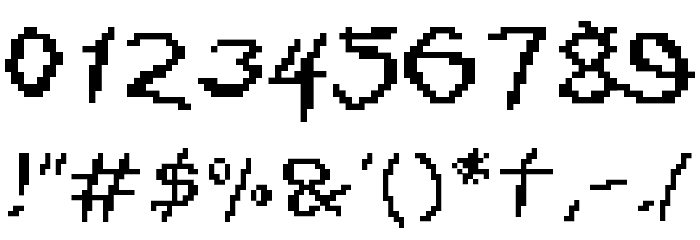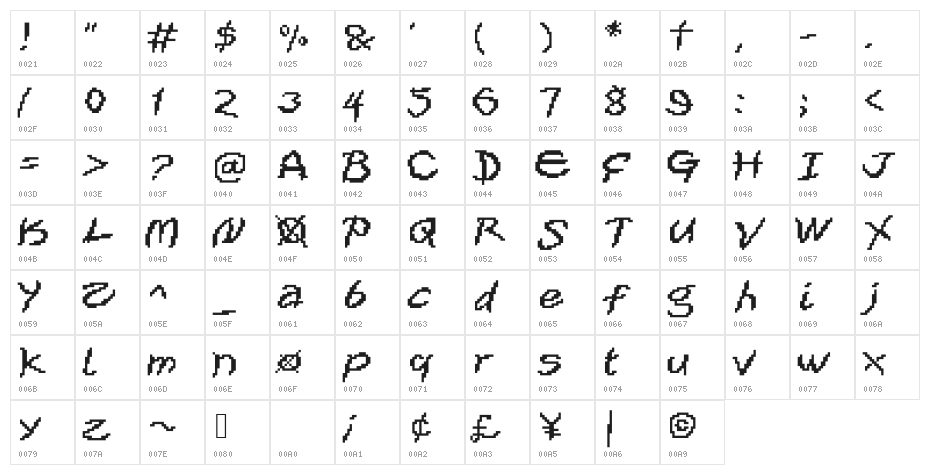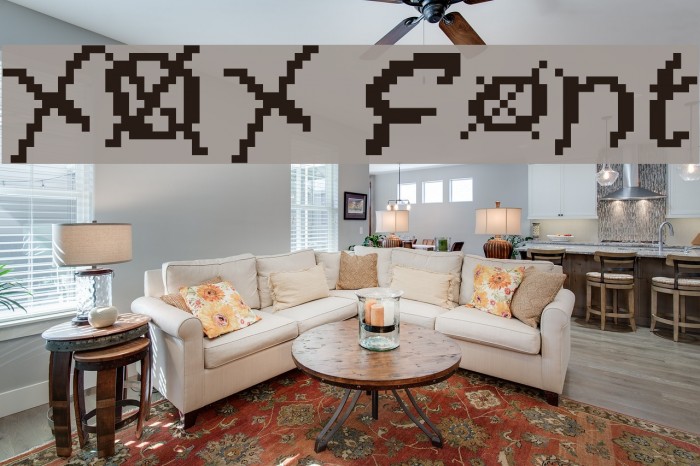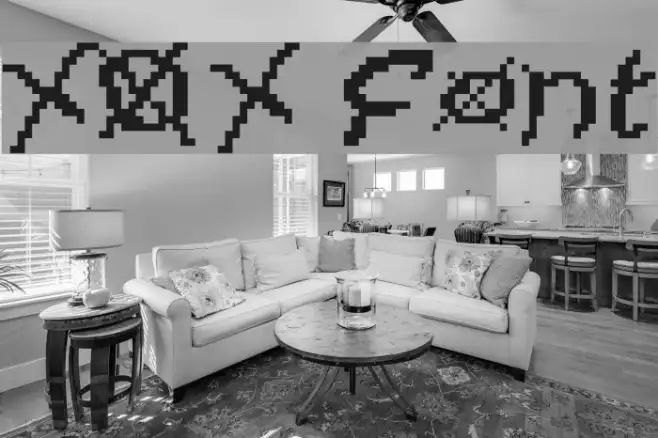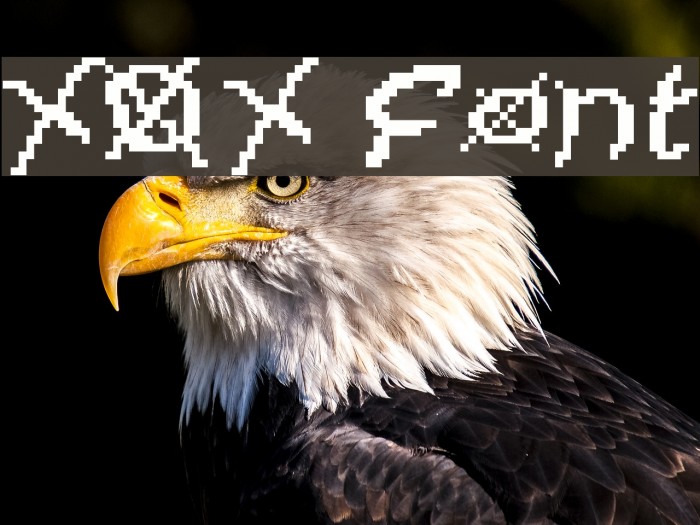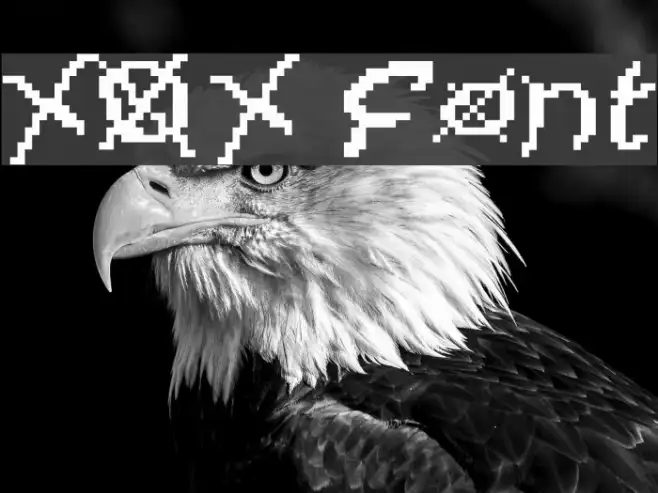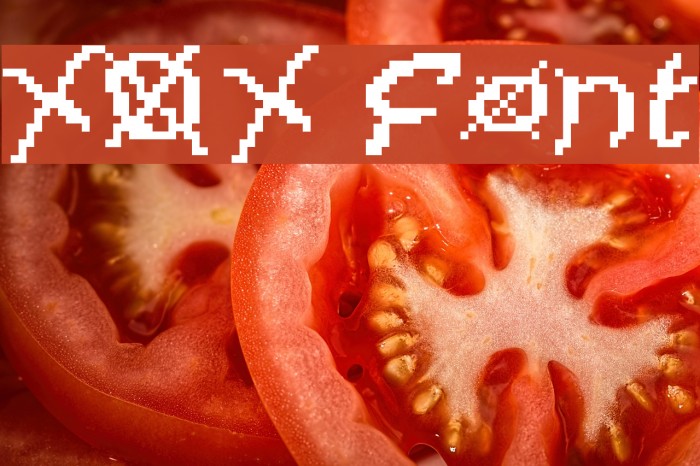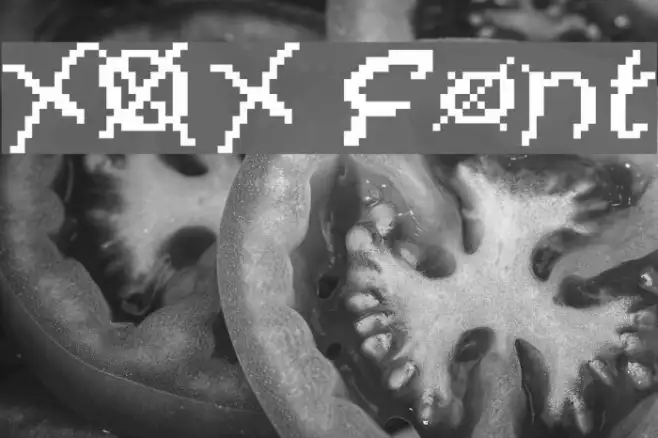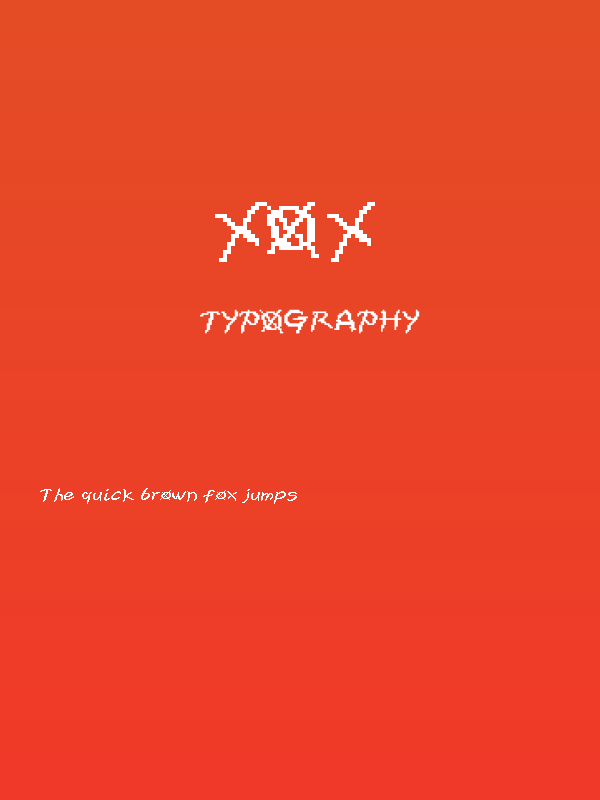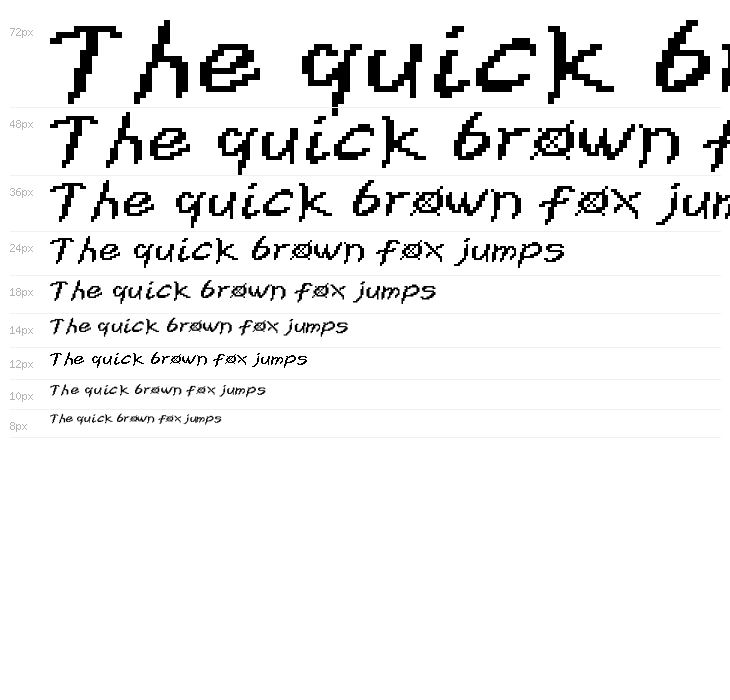
XOX Font
XOX Description
This font features a distinctive, pixelated style reminiscent of early digital or video game typography. The characters are formed with a blocky, jagged appearance, giving it a retro and tech-inspired look. Each letter and number maintains a consistent height and width, contributing to a uniform and cohesive visual presentation. The uppercase and lowercase letters are clearly distinguishable, with the lowercase letters appearing slightly more rounded. The special characters are crafted with the same pixelated aesthetic, ensuring they blend seamlessly with the rest of the font. This typeface is ideal for projects that aim to evoke nostalgia or a digital theme.
| Use Case | Headlines, Logos, Digital Art |
| Proposed Projects | Ideal for video game design, retro-themed posters, digital art projects, and tech-related branding. |